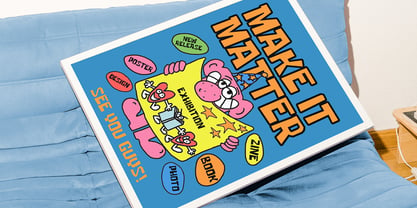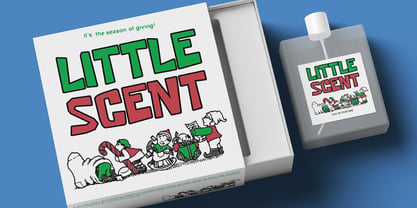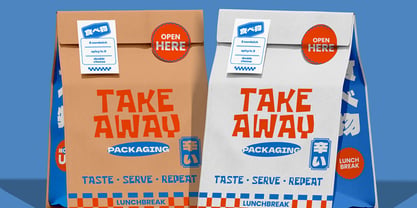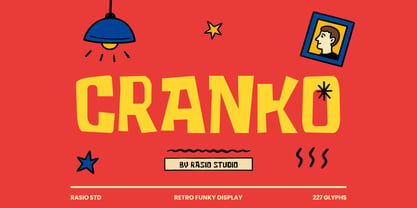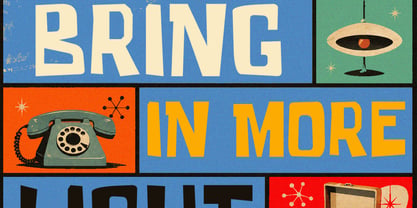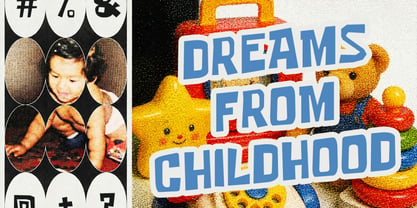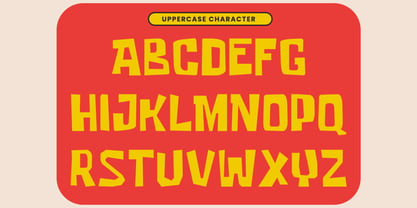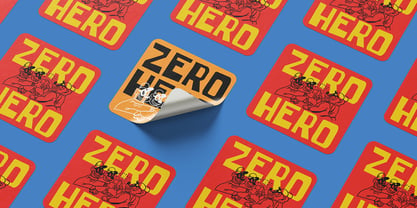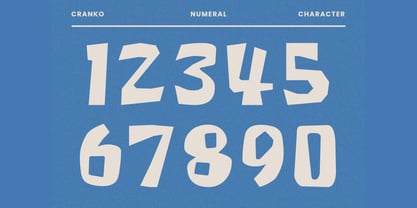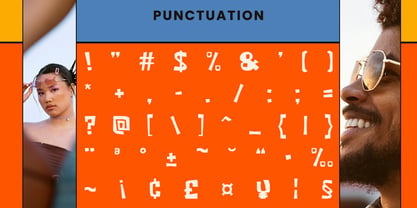
Cranko
A família de fontes Cranko foi desenhada por Fajar Indra e publicada pela Rasio Studio. Cranko contém 1 estilos. Saiba mais sobre esta família
Cranko is a retro funky display font built around bold, irregular letterforms and a playful graphic personality. The uppercase and lowercase characters feature intentionally uneven proportions, angular cuts, and expressive shapes that give the typeface a handcrafted retro appearance while maintaining a strong, readable silhouette. Its distinctive construction makes ordinary words feel more dynamic and gives typography a strong visual presence in creative compositions.
Relevance and Use Case is perfect for retro-inspired branding, creative campaigns, poster design, packaging, apparel graphics, merchandise, event artwork, social media graphics, editorial headlines, advertising, product labels, and decorative typography. Its bold irregular forms make it especially useful when a design needs an energetic, playful, unconventional, or nostalgic visual personality. Designers can use it as a dominant headline, oversized wordmark, campaign title, product name, apparel graphic, or supporting decorative element alongside simpler typography.